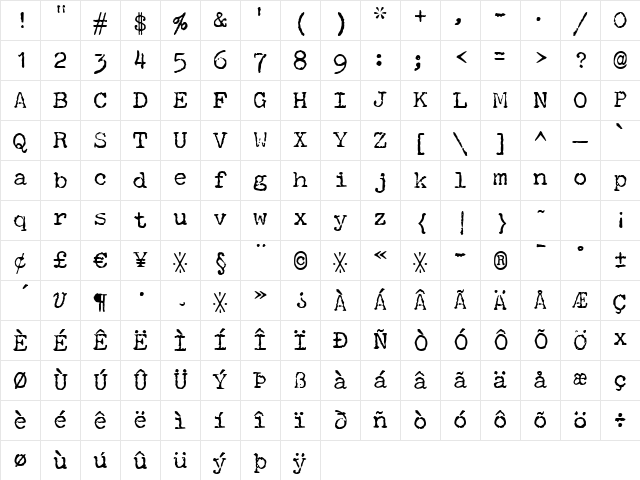
P22 Typewriter Regular
Foundry: P22 type foundry / International House of Fonts
Designer: Richard Kegler
Design Context for P22 Typewriter
P22 Typewriter uses fixed-width spacing throughout, giving it the structured, systematic character associated with coding environments and technical documentation.
Pro Tip: Use P22 Typewriter with slightly increased line-height for extended reading - fixed-width spacing can feel dense in longer passages without extra breathing room.
Who designed the P22 Typewriter Regular font?
This font was published by P22 type foundry / International House of Fonts. Check the technical specs section for copyright and designer details.